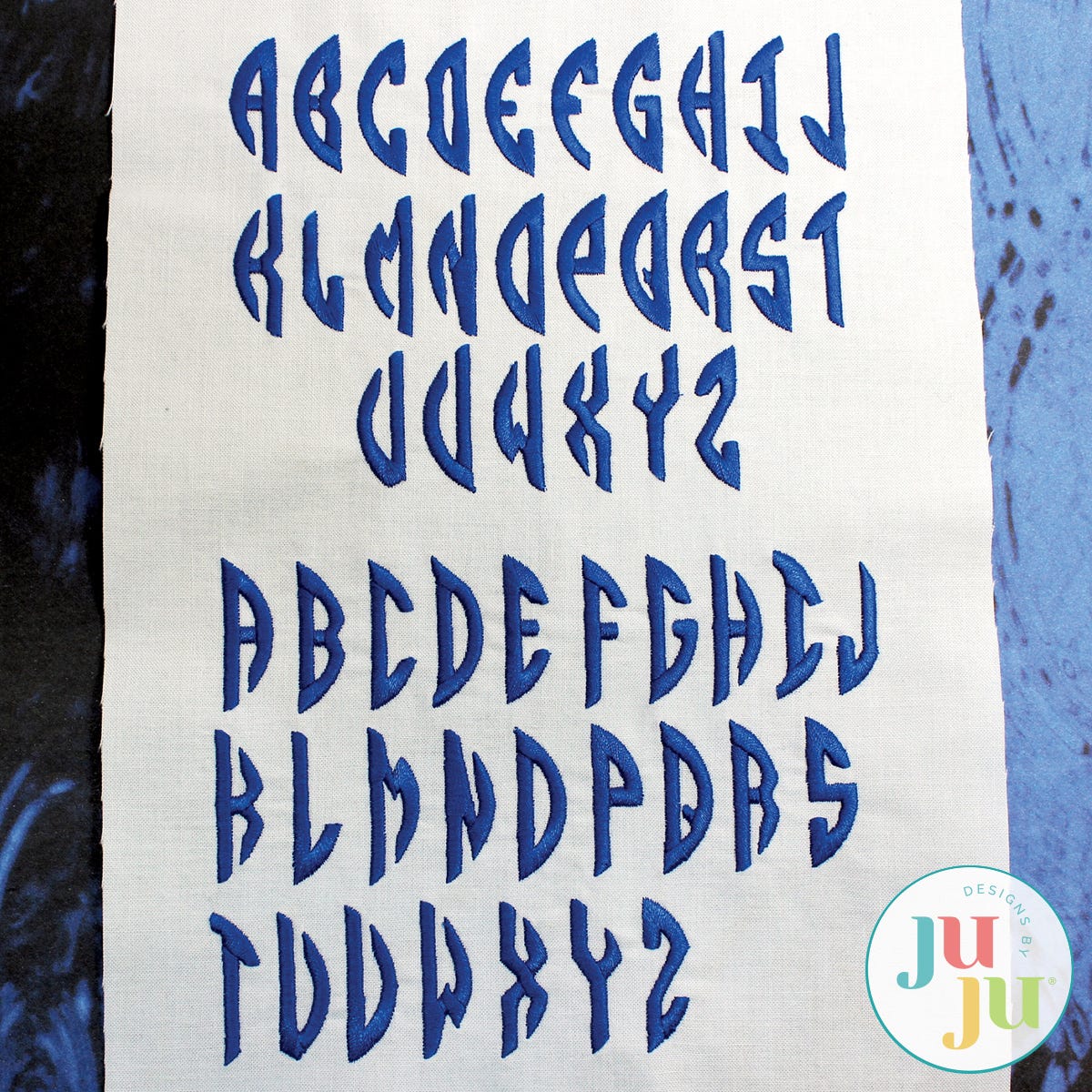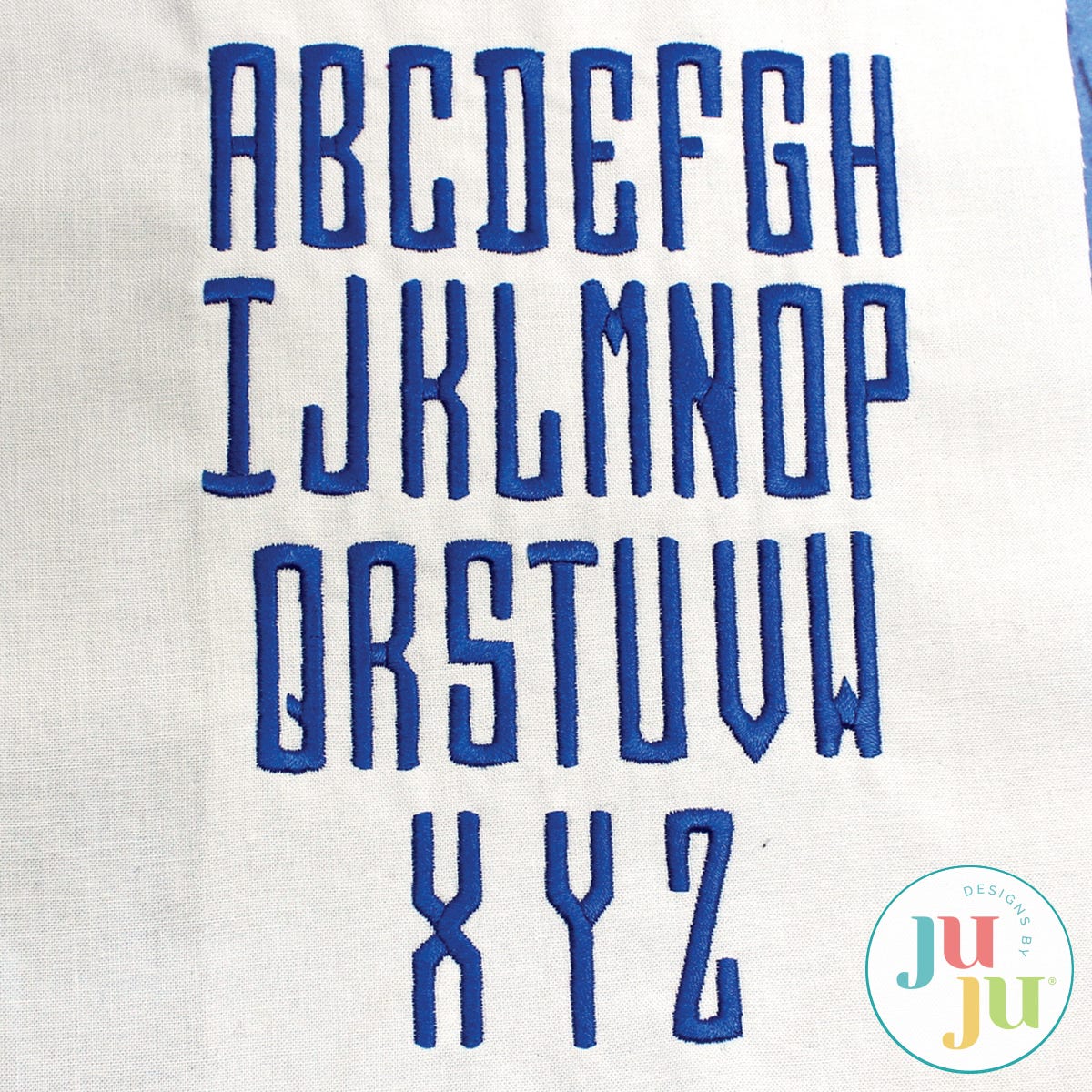
Triple Oval Satin Stitch Monogram Embroidery Font by Oma's Place
This 3 lettered oval monogram will add a classy touch to your projects. You can stitch it with or without the included applique frame. You can also skip the applique stitches of the frame and stitch the frame directly onto your project's fabric.
We are showing the stitched out monogram and applique frame as used on our monogram tote.
There are three fonts, with capital letters only, in this download: 26 letters each for the center, left and right sides. Bx format is included for Embrilliance users.